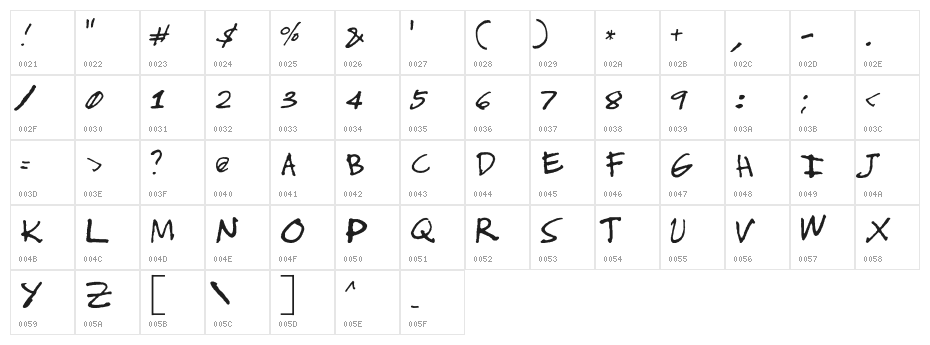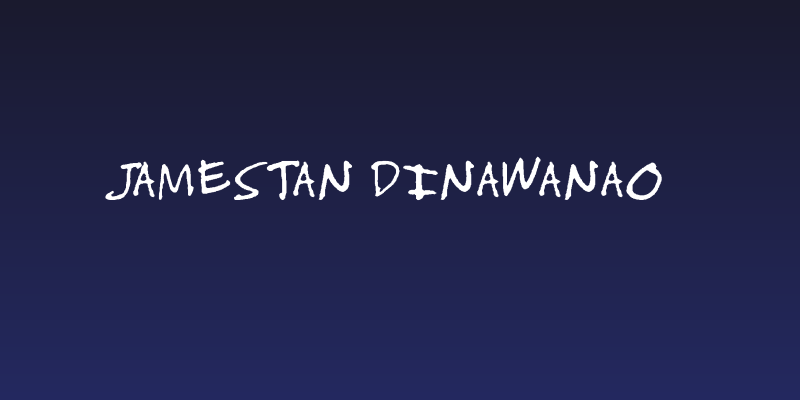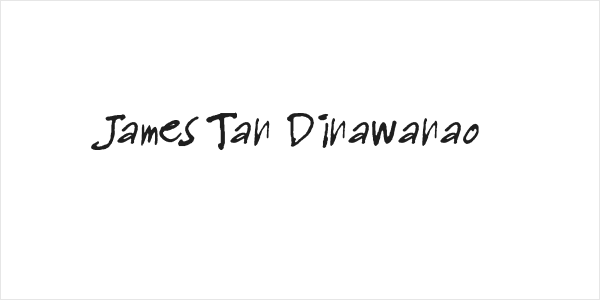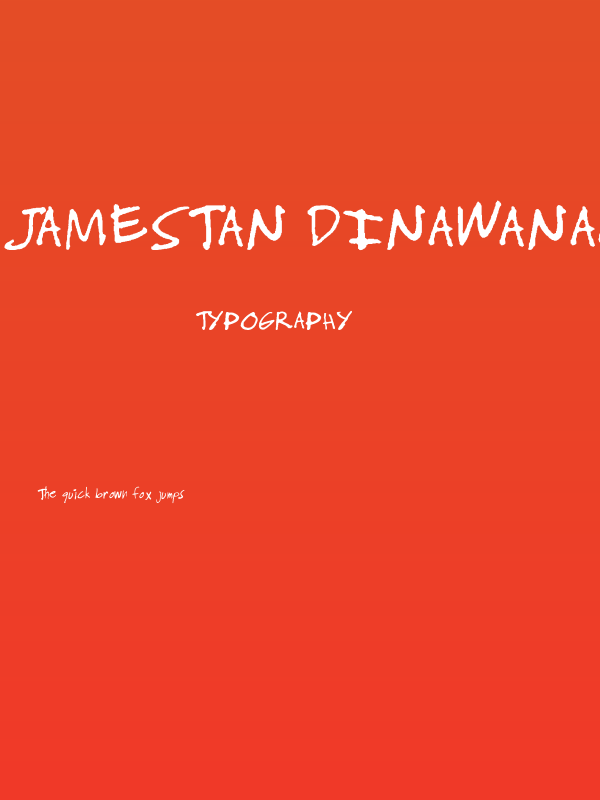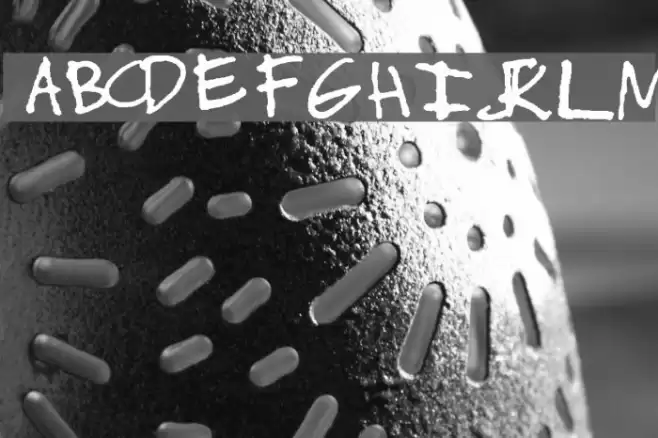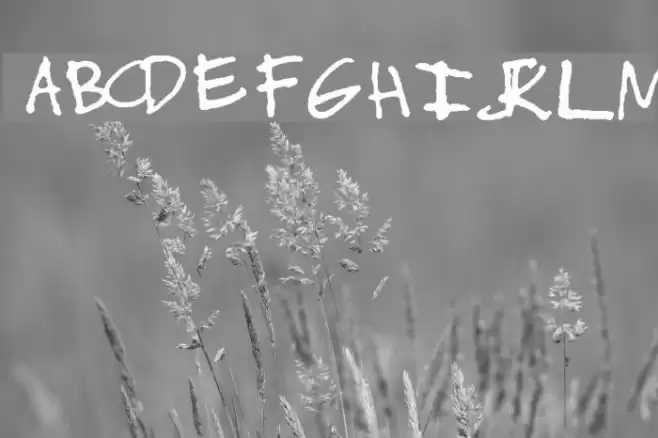
James Tan Dinawanao Font
James Tan Dinawanao Description
This font exhibits a playful and casual handwritten style, characterized by its irregular and dynamic strokes. The letters vary in size and angle, giving it an informal and spontaneous appearance. The uppercase letters are bold and slightly larger than the lowercase, which are more fluid and connected. Numbers and special characters maintain the same lively and freeform style, adding to the overall whimsical feel. The font's unique charm lies in its imperfect and organic look, making it ideal for projects that require a personal touch.
| Overall Style | Casual, Playful |
| Use Case | Headlines, Informal text, Creative projects |
| Proposed Projects | Ideal for greeting cards, personal notes, children's books, and creative branding projects. |